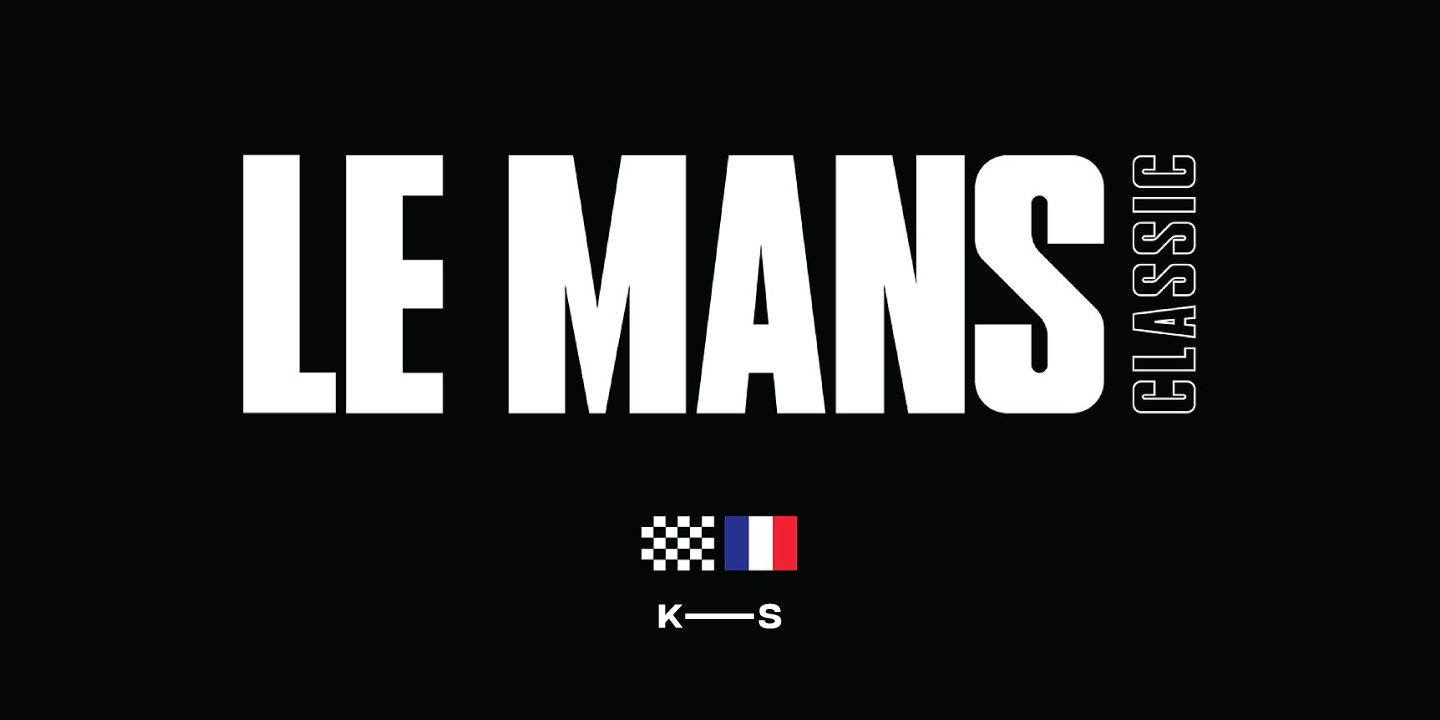
Le Mans Classic Font is perfect for vintage racing team branding, classic car show posters, automotive museum displays, motorsport magazine layouts, racing memorabilia designs, vintage automobile dealerships, classic car rally promotions, speed competition announcements, automotive heritage materials, and retro racing merchandise. This dynamic typeface brings authentic racing heritage and classic automotive excellence to any design project celebrating motorsport tradition and vintage speed culture.
Le Mans Classic Font is exciting because it embodies the legendary spirit and timeless excitement of classic motorsport through its bold letterforms that evoke the golden age of racing and automotive achievement. The font's racing character and vintage appeal communicate speed, precision, and motorsport heritage, making it perfect for brands that want to honor racing tradition and appeal to automotive enthusiasts seeking authentic classic racing experiences.
Le Mans Classic Font family includes multiple weights and styles: Regular, Bold, Light, Medium, Black, Condensed, Extended, Racing, Vintage, and Speed variants. Each style maintains the distinctive motorsport character while providing comprehensive options for creating powerful automotive branding and racing communications that celebrate both classic racing heritage and contemporary motorsport passion across various automotive applications.
Whether you're designing for classic car events, automotive brands, or racing organizations, Le Mans Classic Font Free Download delivers the authentic racing spirit that resonates with motorsport enthusiasts and classic automobile markets. This distinguished typeface combines racing heritage with modern functionality, making it essential for projects requiring both automotive authenticity and high-performance appeal. The font's racing presence ensures memorable impact in motorsport and classic automotive contexts.